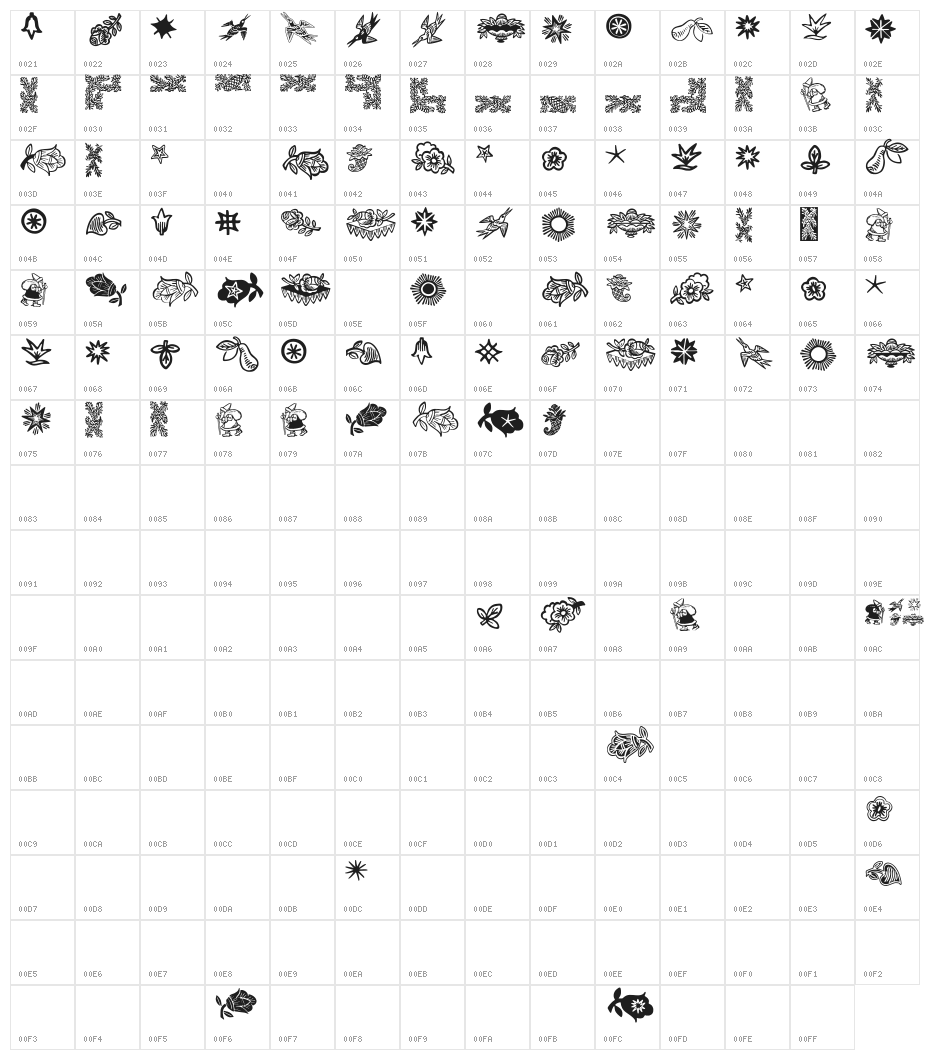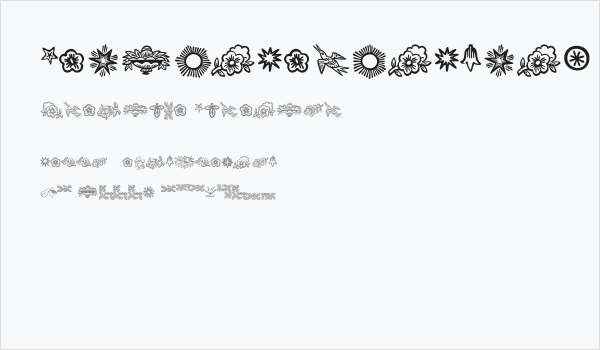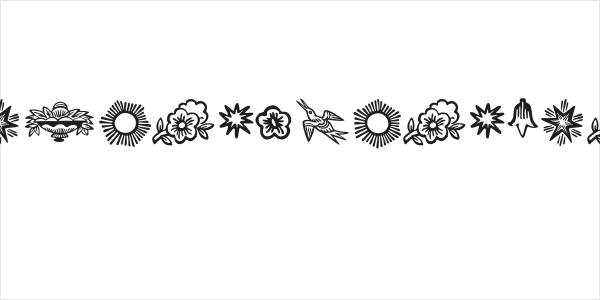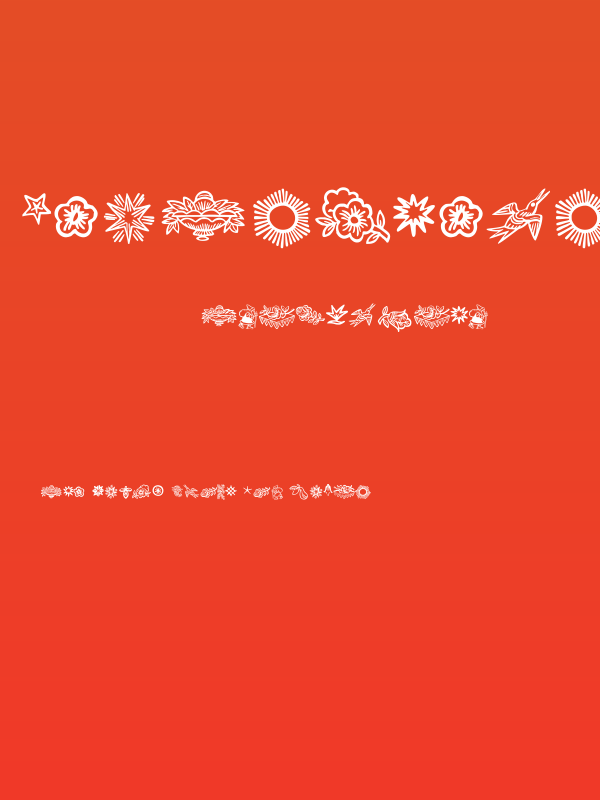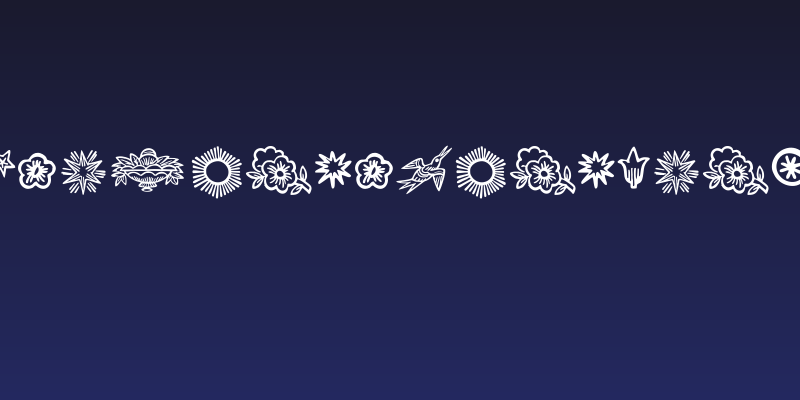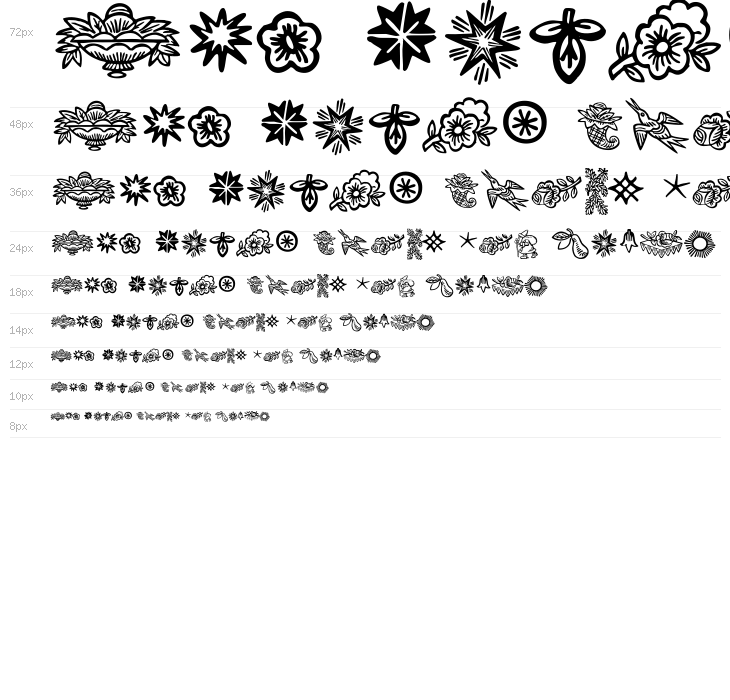
DeutscherSchmuck Font
DeutscherSchmuck Description
A decorative dingbat font featuring intricate floral motifs, birds, stars, ornamental borders, and whimsical figures, all rendered in bold black outlines with detailed linework. The glyphs are highly stylized and vary in complexity, with some forming seamless borders or frames, while others stand alone as individual icons.
| Overall Style | Decorative, Vintage |
| Use Case | Borders, embellishments, icons, and decorative elements in print or digital design. |
| Proposed Projects | Invitations, greeting cards, decorative borders, scrapbooking, vintage-themed designs, ornamental dividers, and embellishments. |